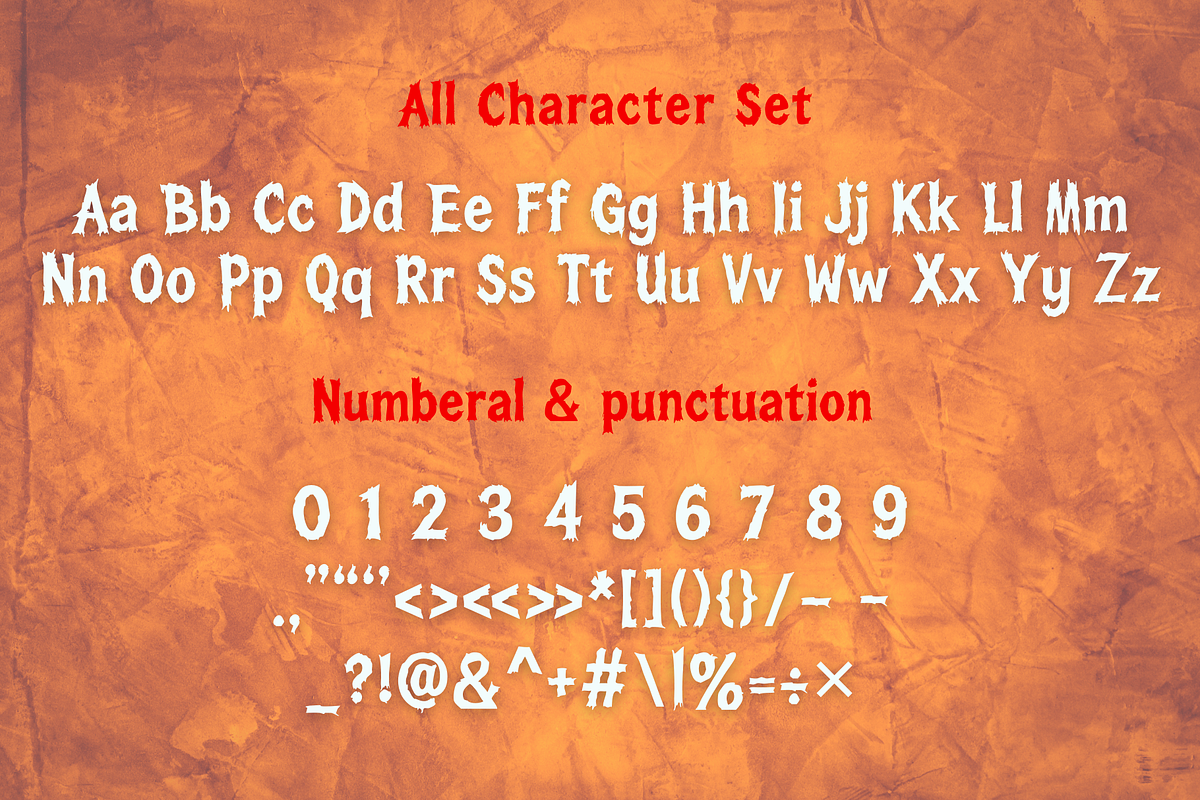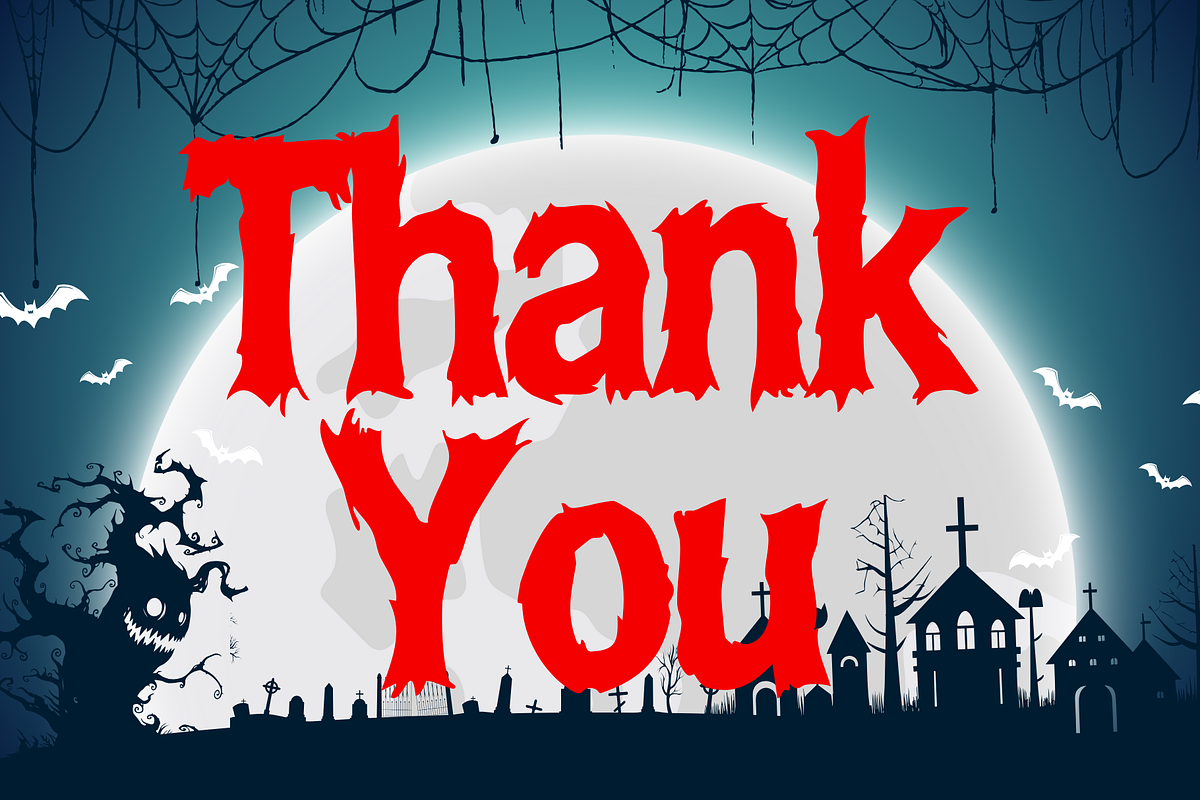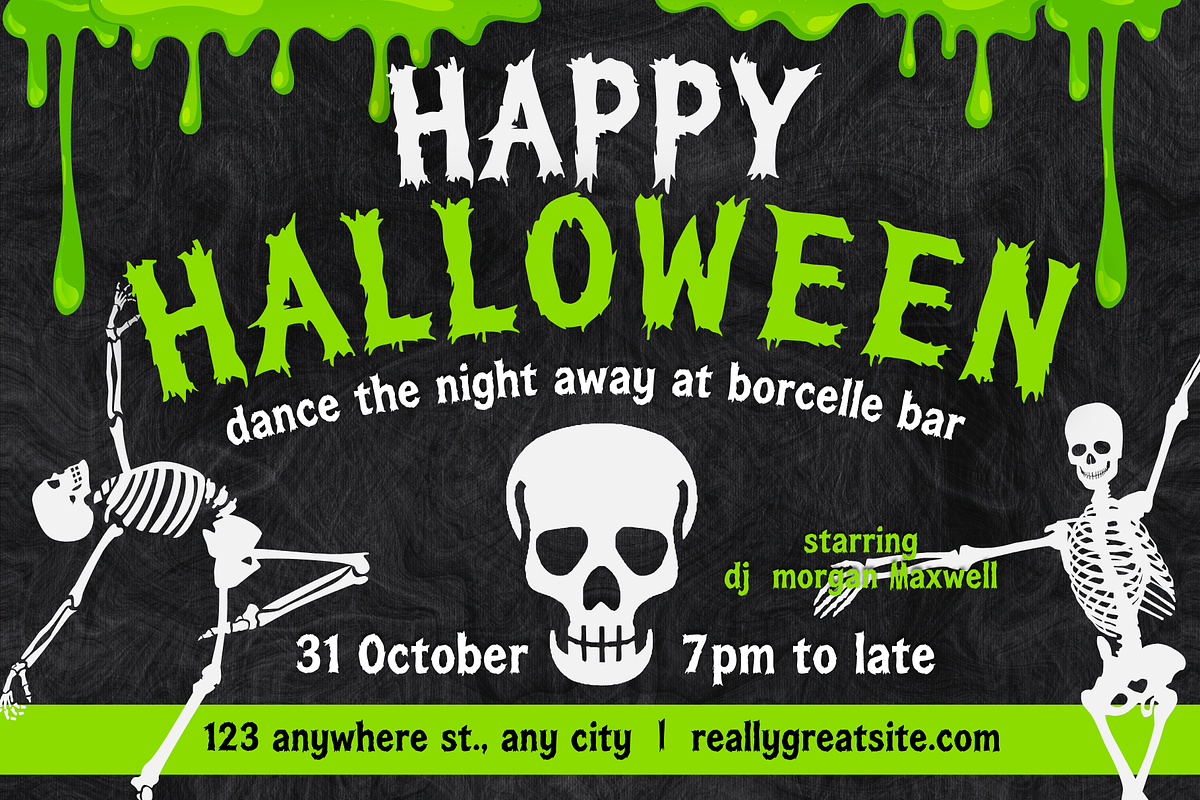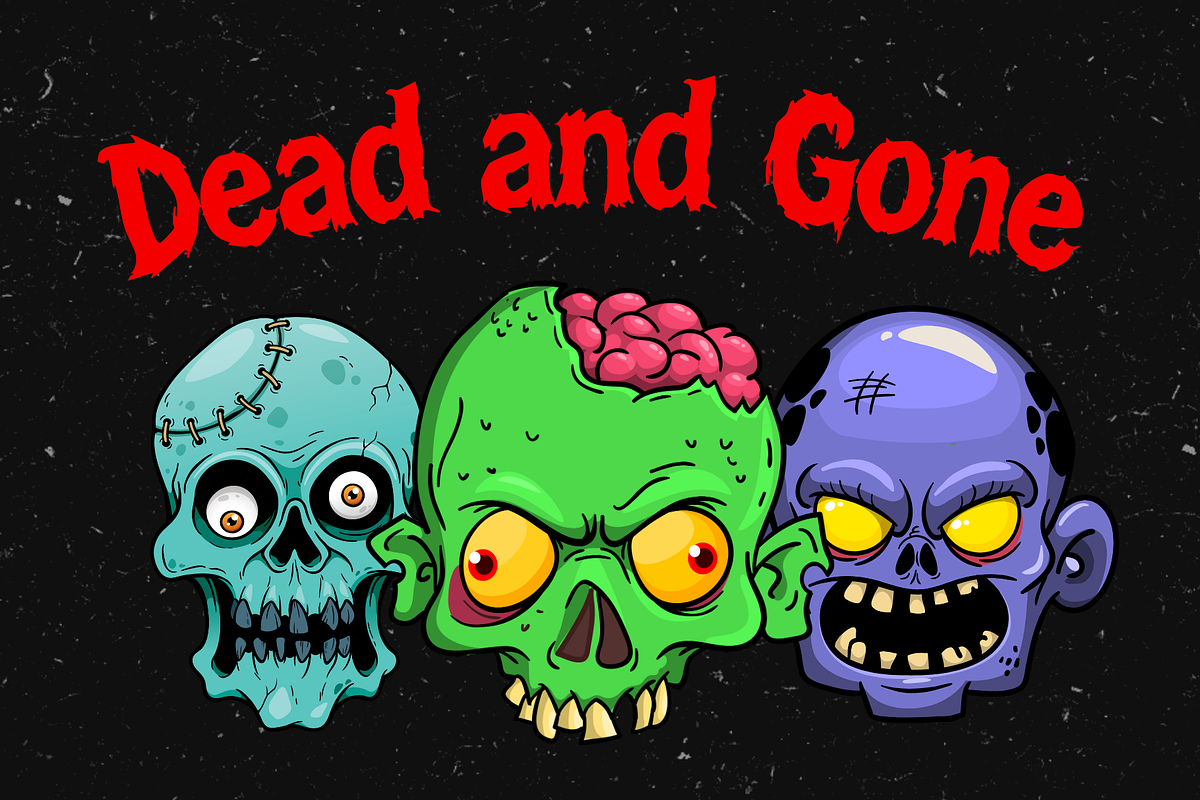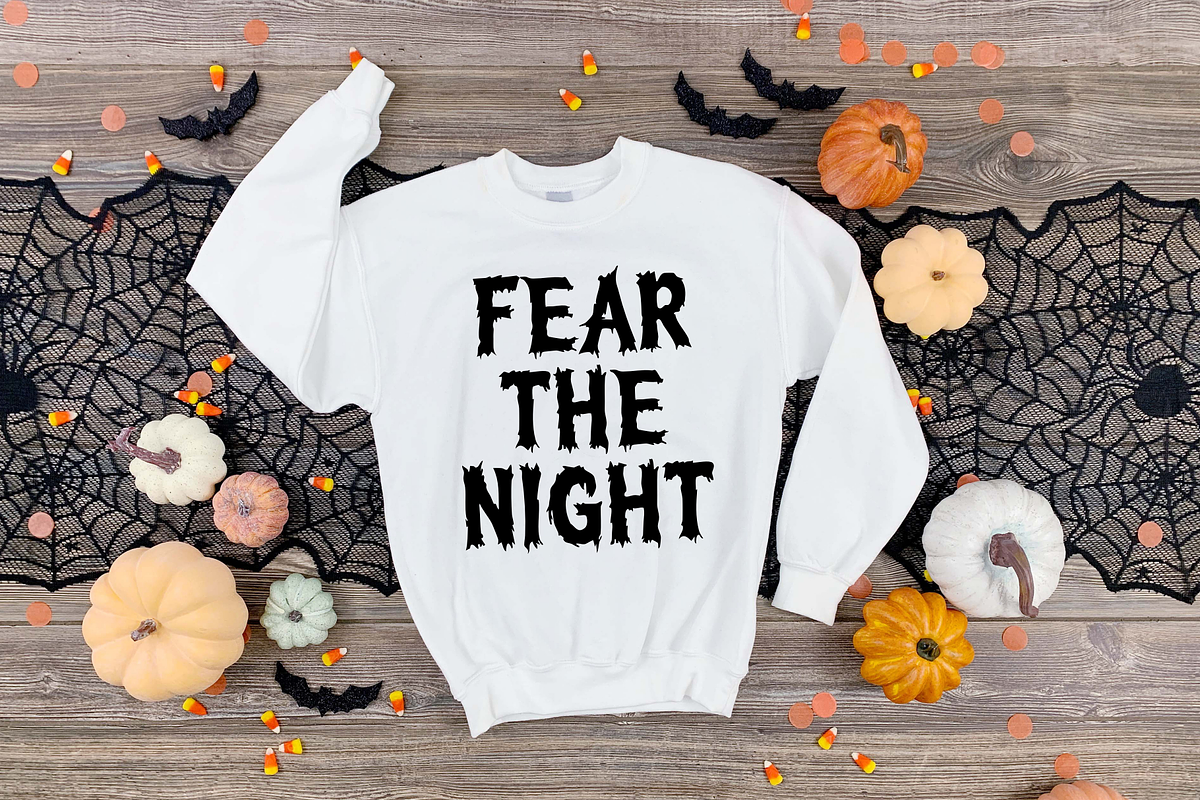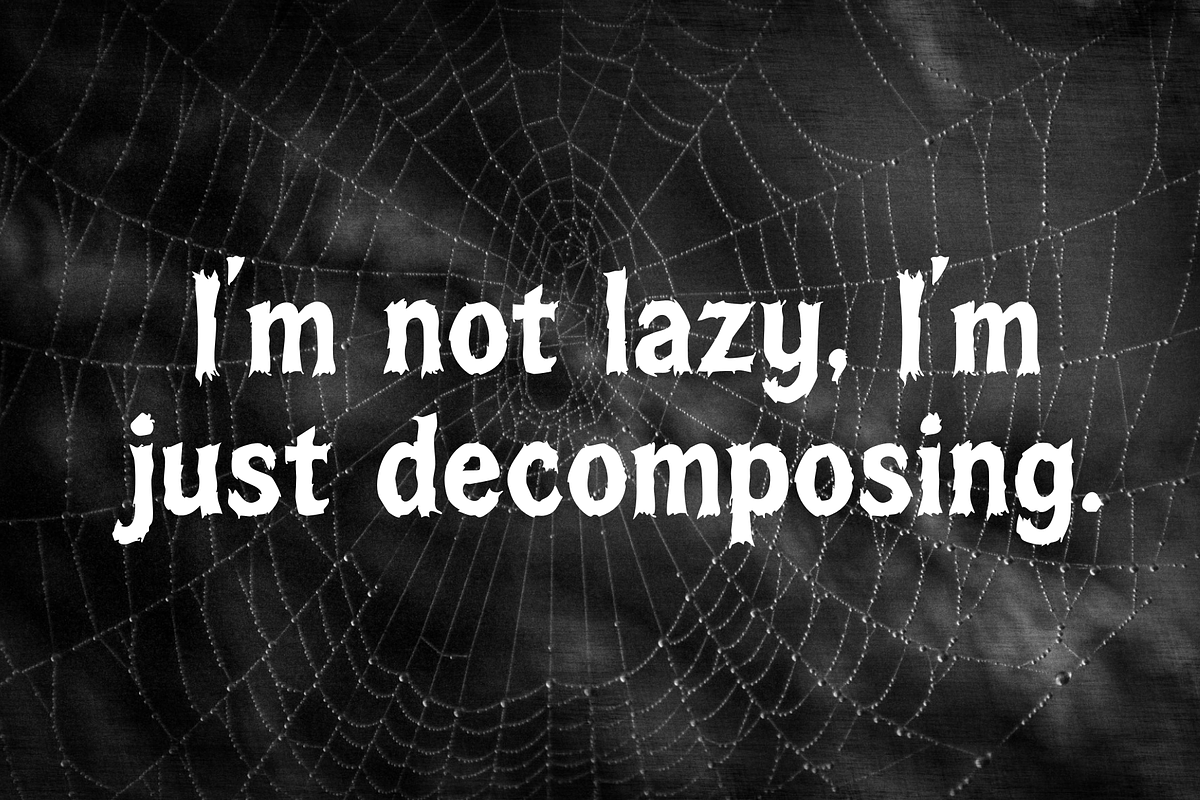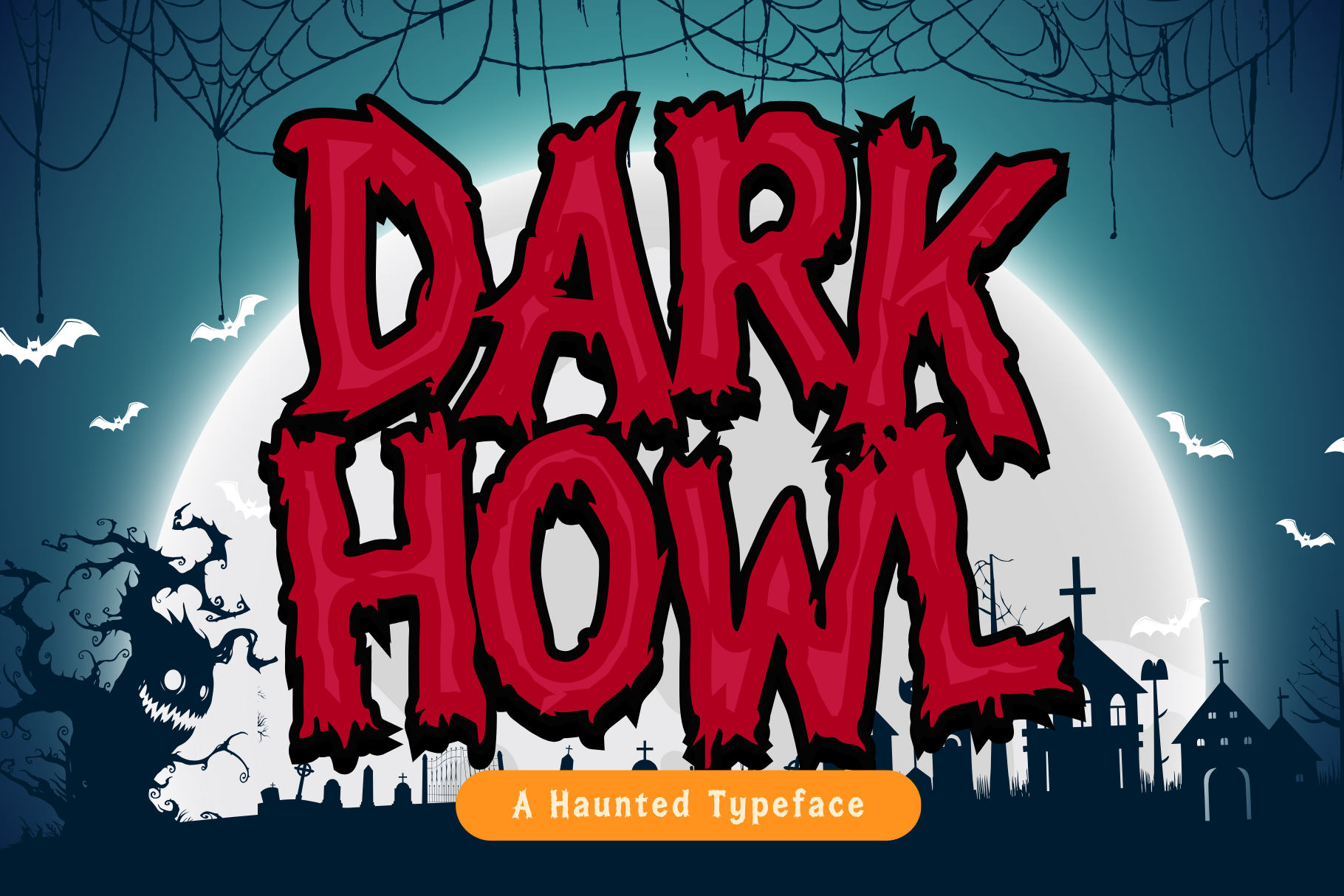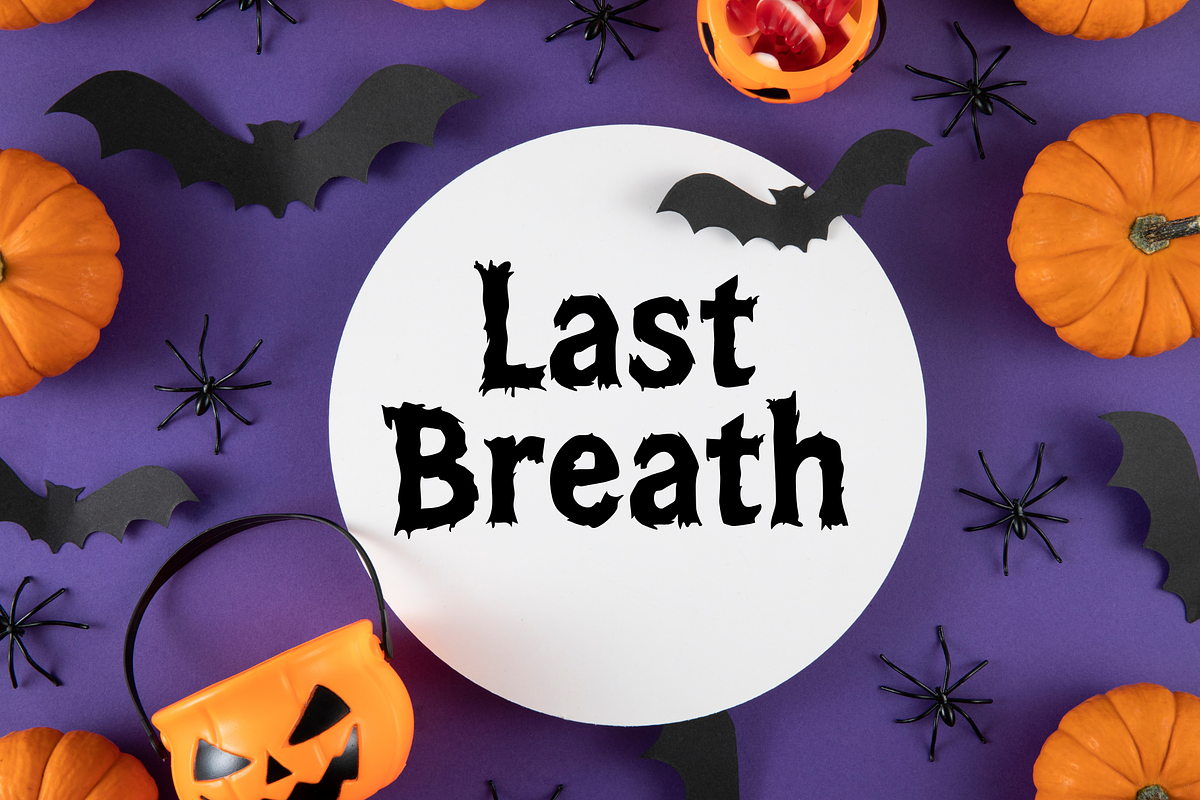
Dark Howl – A Haunted Typeface
Dark Howl – A Haunted Typeface from the Shadows
Unleash the terror with Dark Howl, a horror-inspired typeface that howls from the depths of the night. Featuring jagged edges, uneven strokes, and a distressed finish, this font is perfect for chilling posters, eerie book covers, haunted house branding, Halloween invitations, and anything that needs a touch of dread.